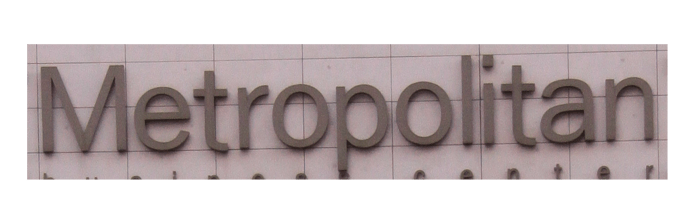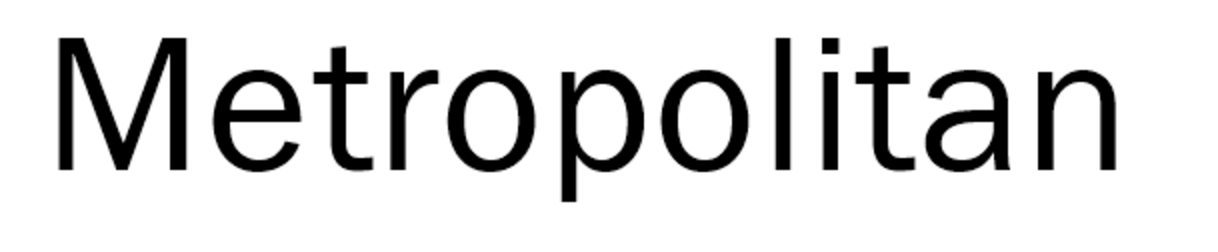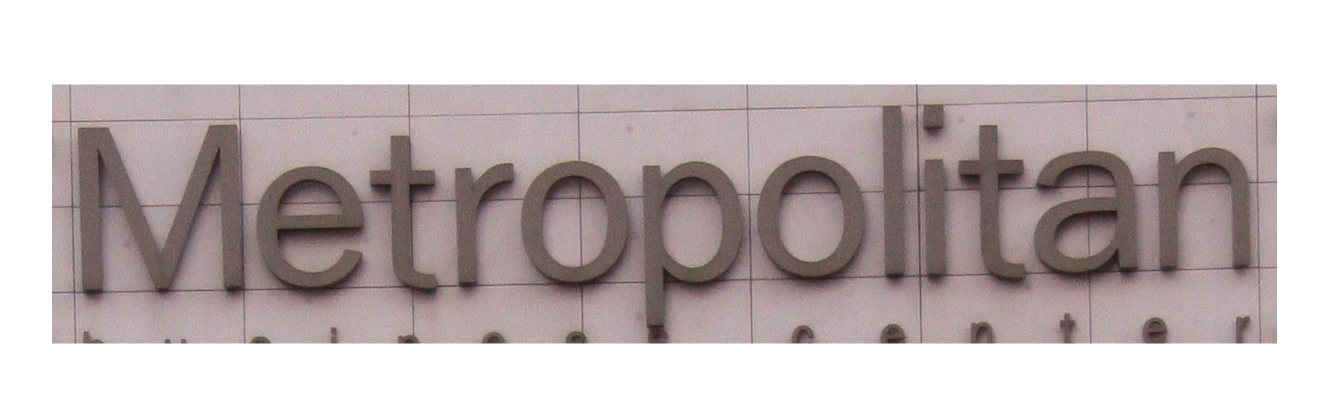
I want the font in the Metropolitan word, I try to find it but all that I found were similar and I need the exact one, please
Looks to me like it’s really close to ITC Franklin Gothic
Perhaps some of the letters have been modified a touch?